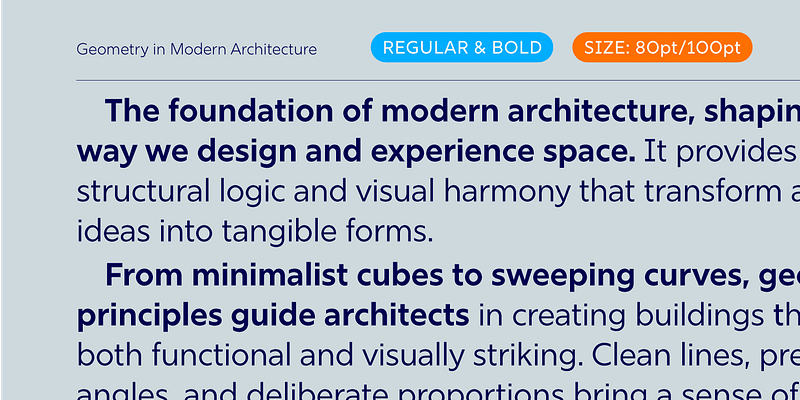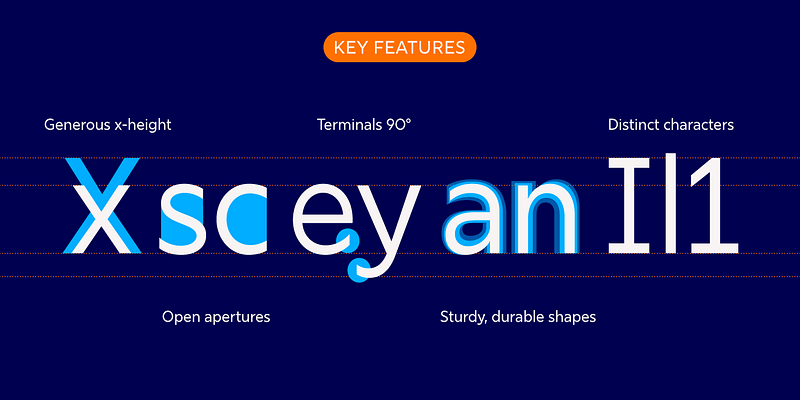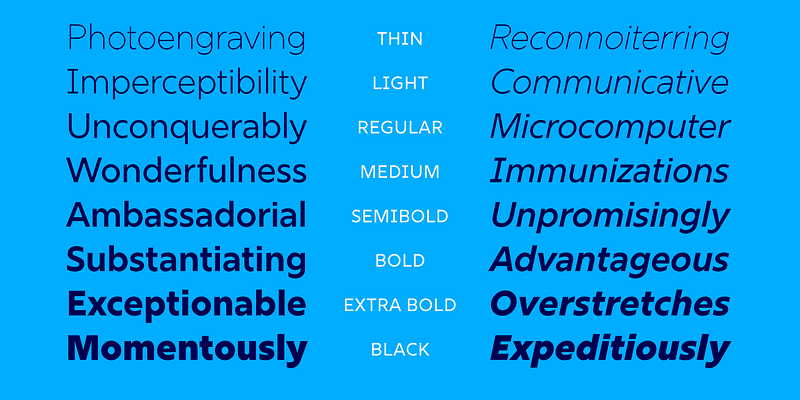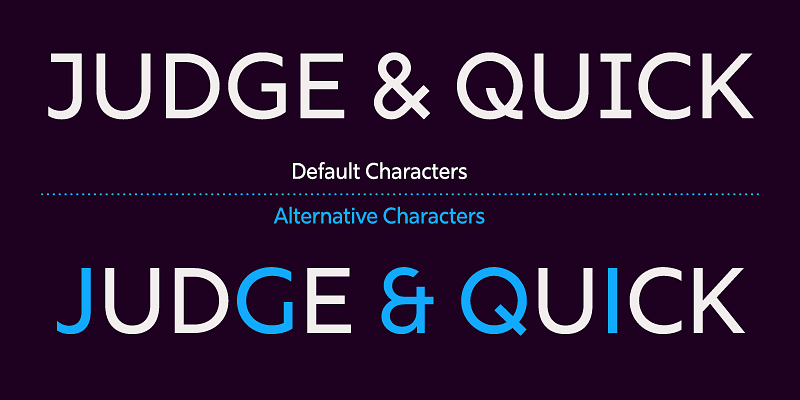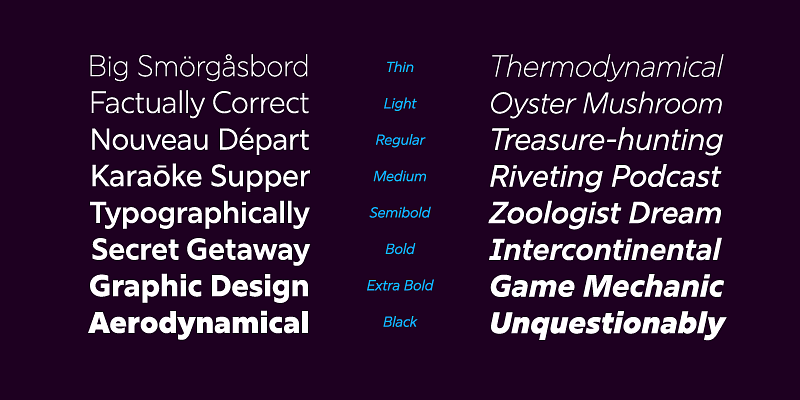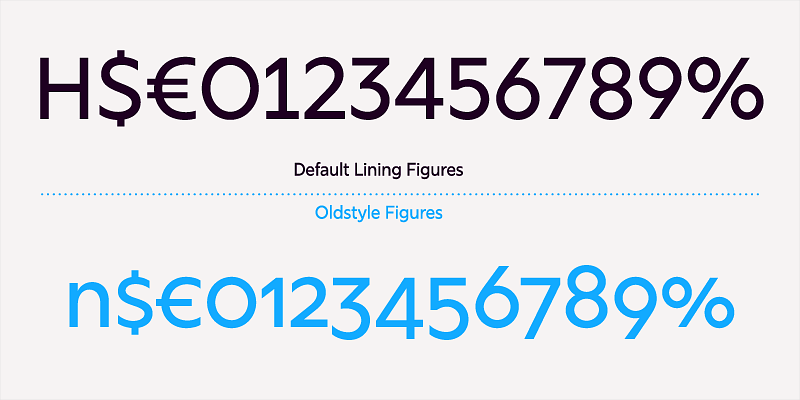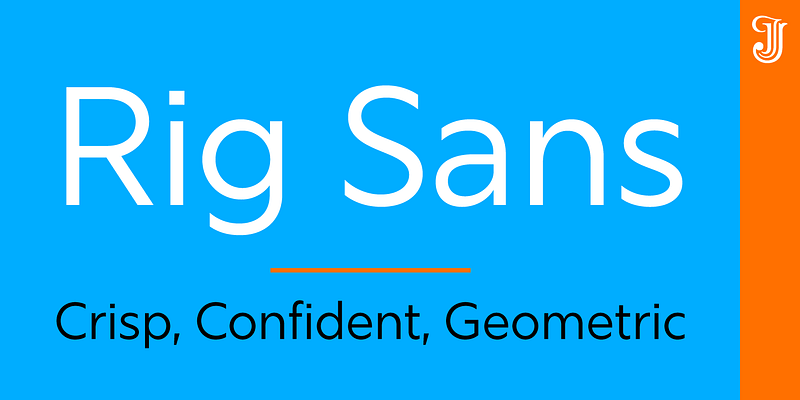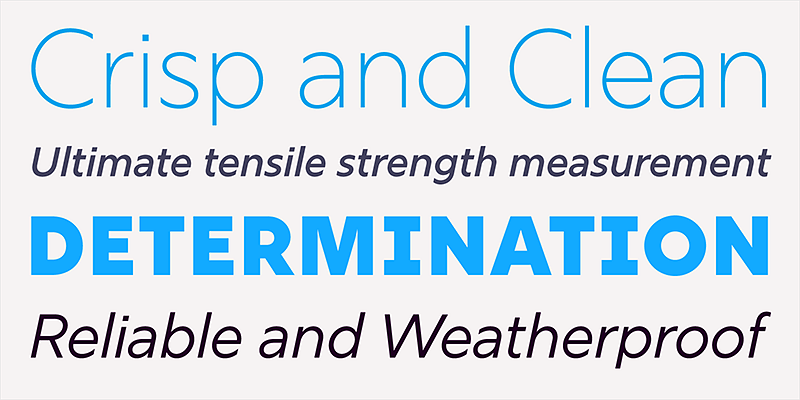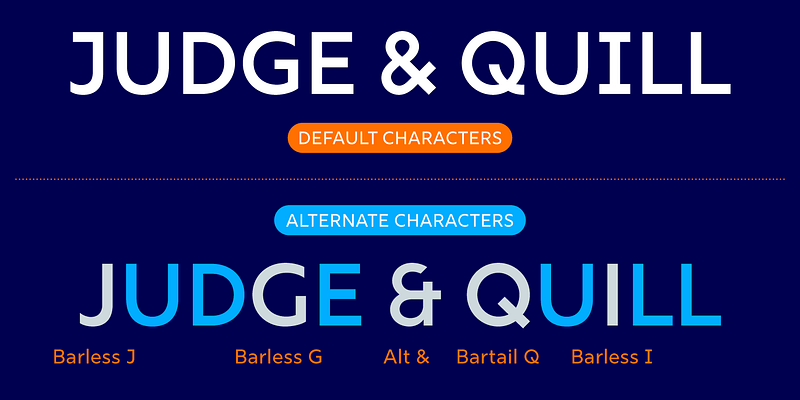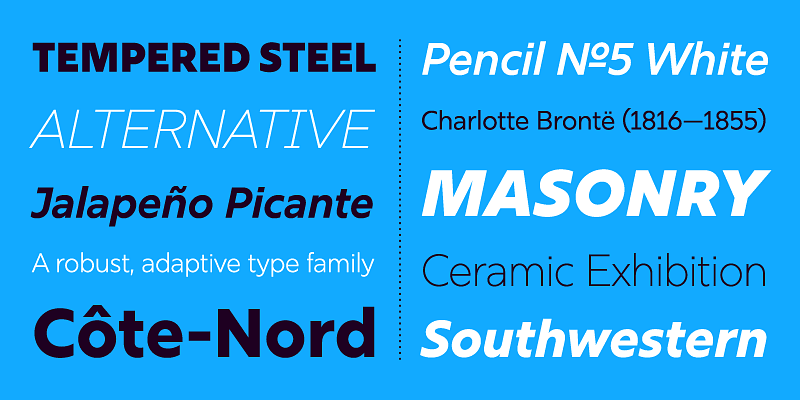
Rig Sans is a streamlined geometric typeface, which speaks in a confident, affable tone. Its open, clean structure lends text a neutral, transparent quality.
The generous x-height and clipped terminals of Rig Sans reinforce its robust structure. This design ensures outstanding legibility even in the most demanding environments, making it a resilient choice for varied applications.